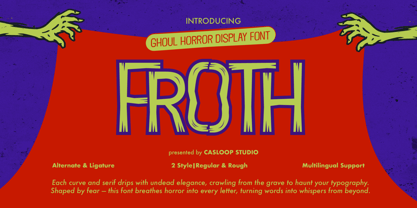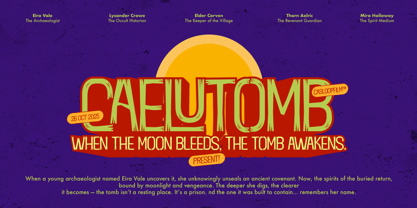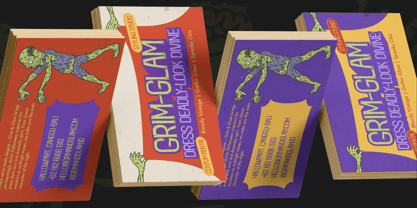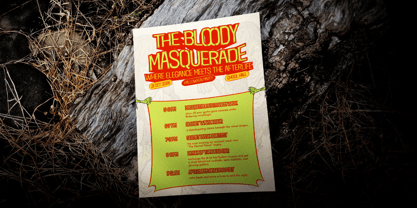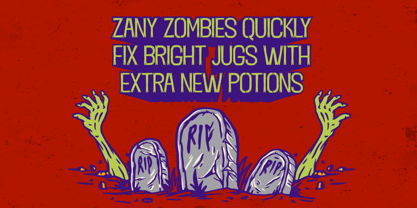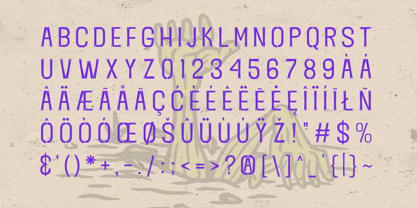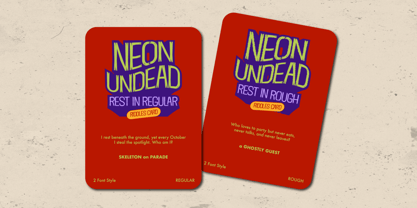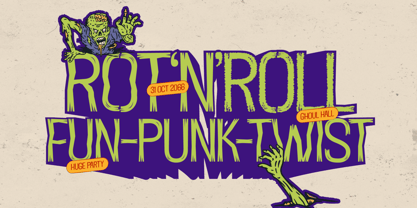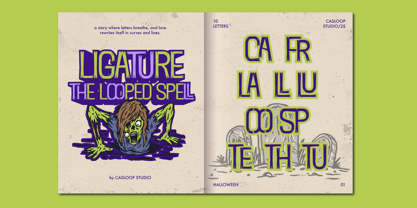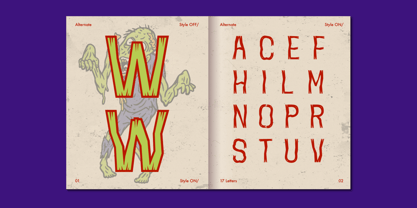
Froth
by Casloop Studio
The Froth Font Family was designed by Wantara Putra and published by Casloop Studio. Froth contains 2 styles and family package options.
Froth is a terror born display typeface that bleeds horror and oozes style. With its melting, drippy silhouettes and fleshy texture, this font feels alive or almost undead. Designed to capture the grotesque beauty of decay, Froth transforms words into something that writhes, drips, and stares back at you. Perfect for Halloween visuals, zombie movie titles, or any design craving a raw, decaying aesthetic. Froth Regular delivers thick, uneven strokes that melt downward like flesh in heat bold, heavy, and disturbingly smooth. Froth Rough amplifies the chaos, adding textured grit and terror detail to every curve. Its expressive “W” anchors the set uneven, sinewy, and wickedly organic, as if stitched together from something not quite human. Best For Display & headline design Horror film titles & posters Halloween campaigns & motion graphics Zombie-themed branding & packaging Merch & apparel graphics Multilingual Extended Latin Support